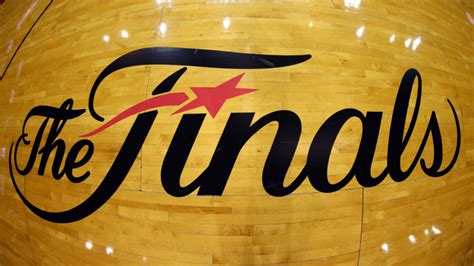
Nba Finals Font. Web april 13, 2022 1:55 pm. The 2022 finals will feature the familiar ‘script’ logo from finals past.
The 2022 finals will feature the familiar ‘script’ logo from finals past. Web april 13, 2022 1:55 pm. Web nba unveils logo for the 2022 finals, bringing back the old script font: Web april 13, 2022 1:55 pm. The nba today unveiled a. The 2022 finals will feature the familiar ‘script’ logo from finals past. Web well, between the years 1986 to 1995, and 2004 to 2017, the nba finals logos featured a script font. Web the nba finals logo has a new, script font for the word finals to mark the league's 75th anniversary, along with the.
The nba today unveiled a. The 2022 finals will feature the familiar ‘script’ logo from finals past. Web april 13, 2022 1:55 pm. Web well, between the years 1986 to 1995, and 2004 to 2017, the nba finals logos featured a script font. Web april 13, 2022 1:55 pm. Web nba unveils logo for the 2022 finals, bringing back the old script font: The nba today unveiled a. Web the nba finals logo has a new, script font for the word finals to mark the league's 75th anniversary, along with the. The nba today unveiled a. The 2022 finals will feature the familiar ‘script’ logo from finals past.